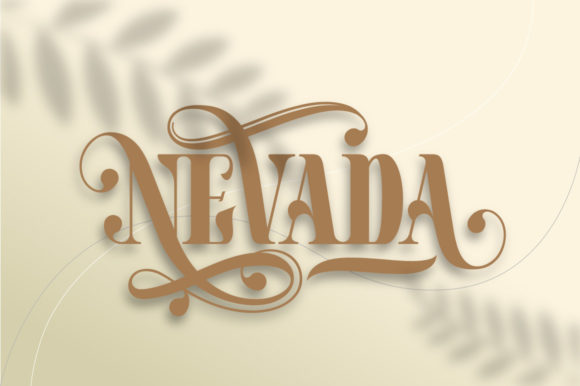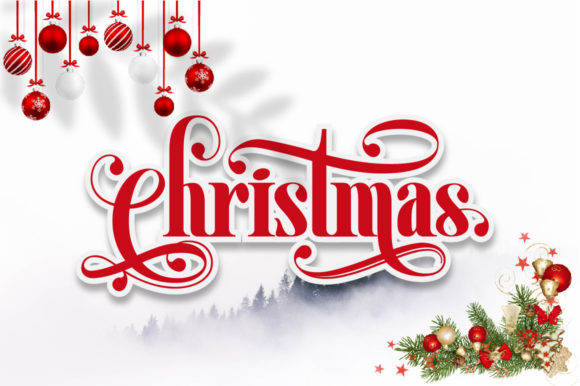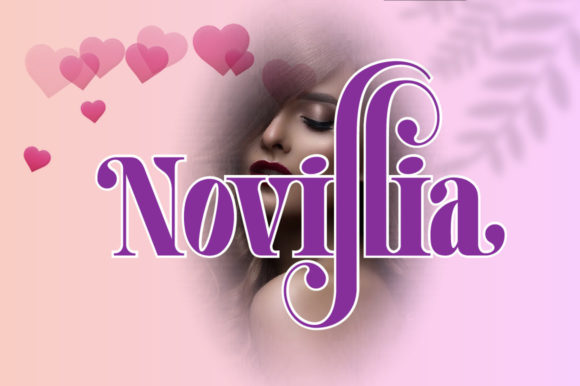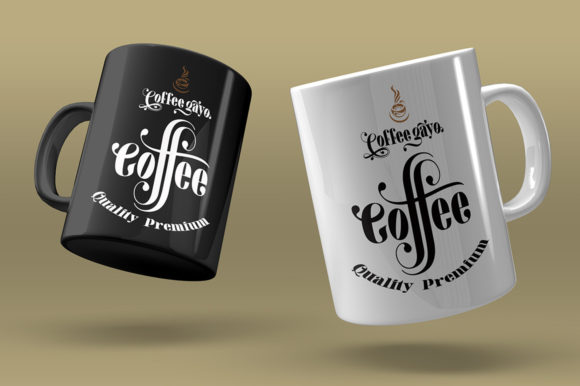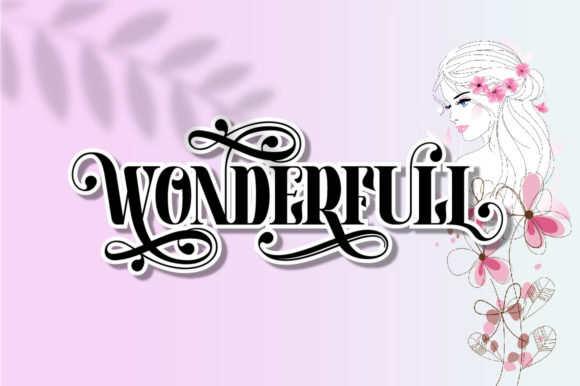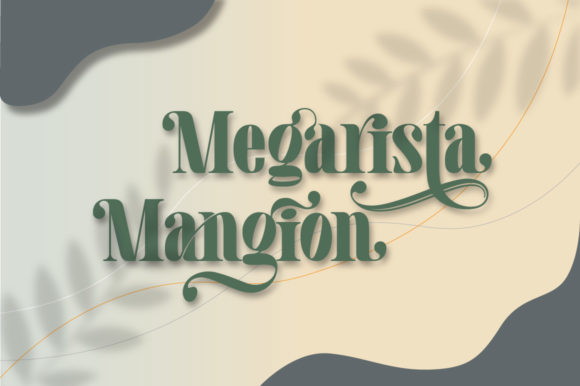
Unleashing Creativity with the Perfect Font
Have you ever stared at a blank page, trying to find the perfect font to bring your design to life? I’m sure you have. As designers, we’re constantly on the hunt for that one font that will make our creations stand out from the crowd. And, trust me, it’s a moment of pure excitement when we finally find it.
Meet the Calliagona Font, a stunning serif font that’s sure to become your new go-to. With its bold and stylish design, this font is perfect for making a statement in any project. And, as a bonus, it’s PUA encoded, making it easy to access all the glyphs and swashes you need to take your designs to the next level.
Whether you’re a seasoned designer or just starting out, the Calliagona Font is an invaluable addition to your toolkit. Its versatility and endless possibilities make it a must-have for any creative project.
Calliagona Font Key Features
- Font Family: Calliagona Font is a unique, high-end font family that includes 6 styles (Thin, Light, Regular, Medium, Bold, Black) and 2 script styles (Calligraphic and Brush Script).
- Unique Characteristics: Calliagona Font features elegant, handwritten letterforms with subtle flair and texture, perfect for creating high-end designs, invitations, and branding materials.
Calliagona Font Review
Overall, I found the Calliagona font to be a visually appealing and unique addition to any design project. Here are some of its notable features: ✨
- ✨ Elegant script style that adds a touch of sophistication to any text
- ✨ Wide range of font sizes and styles to choose from, making it versatile for various design needs
- ✨ Works well for headings, titles, and even short paragraphs of text
However, I did encounter a few limitations that may impact its usability: ⚠️
- ⚠️ May be difficult to read in smaller font sizes or when used extensively in body text
- ⚠️ Limited support for non-English languages, which may be a concern for multilingual projects
- ⚠️ Can appear cluttered or busy when paired with too many other decorative elements
Overall, I would recommend the Calliagona font for projects where a touch of elegance and sophistication is needed. While it may have some limitations, its unique style and versatility make it a valuable addition to any designer’s toolkit.
Tips for Getting the Most Out of Calliagona Font
Use the Calliagona Font for:
- Designing elegant and sophisticated documents.
- Creating modern and stylish graphics.
- Adding a touch of luxury to your designs.
Experiment with different font sizes, colors, and styles to achieve the desired effect.
Alternatives to Calliagona Font
Playfair Display is an elegant, luxurious serif font that is ideal for high-end branding, magazines, and advertising. It features intricate details and a classic feel, making it a great choice for designers looking to add sophistication to their designs. Compared to Calliagona Font, Playfair Display is more ornate and luxurious, making it suitable for premium brands and publications.
Merriweather is a classic, traditional serif font that is perfect for body text, signage, and editorial design. It features a timeless feel and is highly legible, making it a great choice for designers looking for a reliable, versatile font. Compared to Calliagona Font, Merriweather is more straightforward and less ornate, making it suitable for a wide range of applications.
Didot is a high-end serif font that is ideal for luxury branding, fashion, and fine art. It features a classic, elegant feel and is highly legible, making it a great choice for designers looking to add sophistication to their designs. Compared to Calliagona Font, Didot is more refined and less ornate, making it suitable for premium brands and high-end publications.
What font sizes and styles are available in the Calliagona Font family?
The Calliagona Font family includes a range of font sizes and styles, including Regular, Bold, Italic, and Bold Italic. The font is available in sizes ranging from 8pt to 72pt, making it suitable for use in a variety of applications, from small text to large headlines.